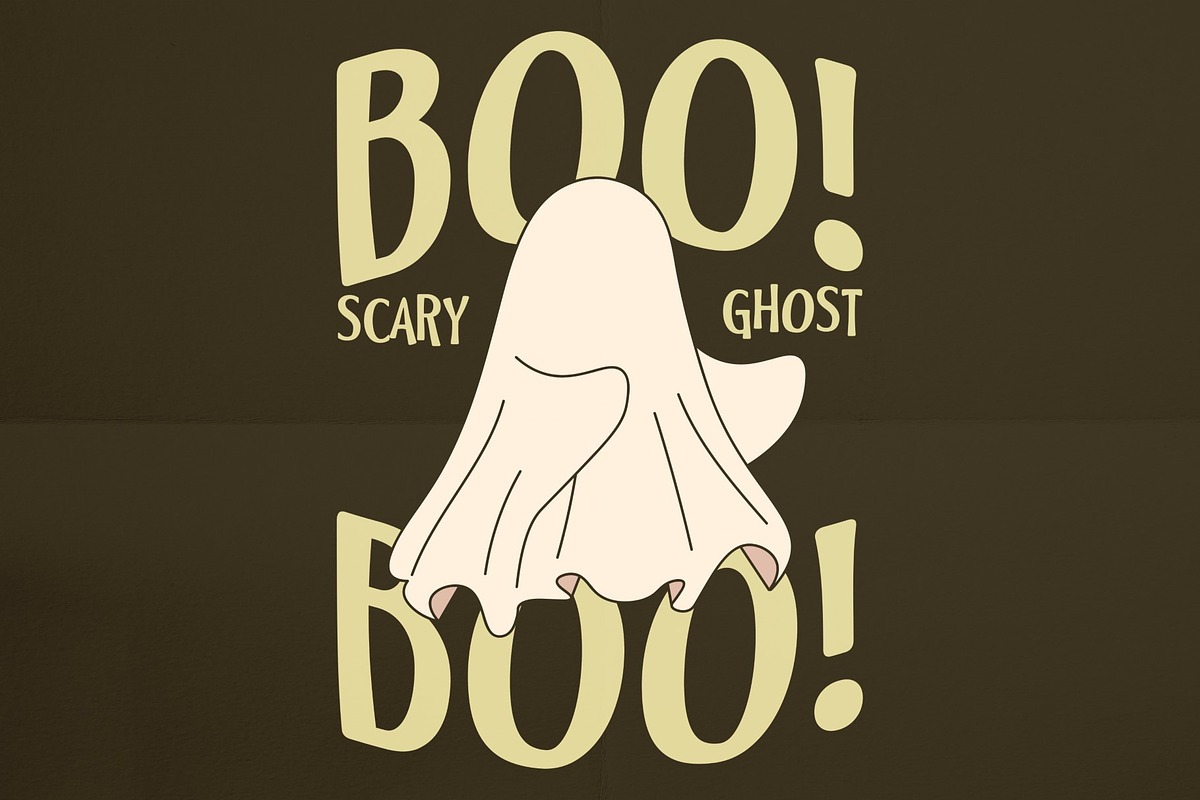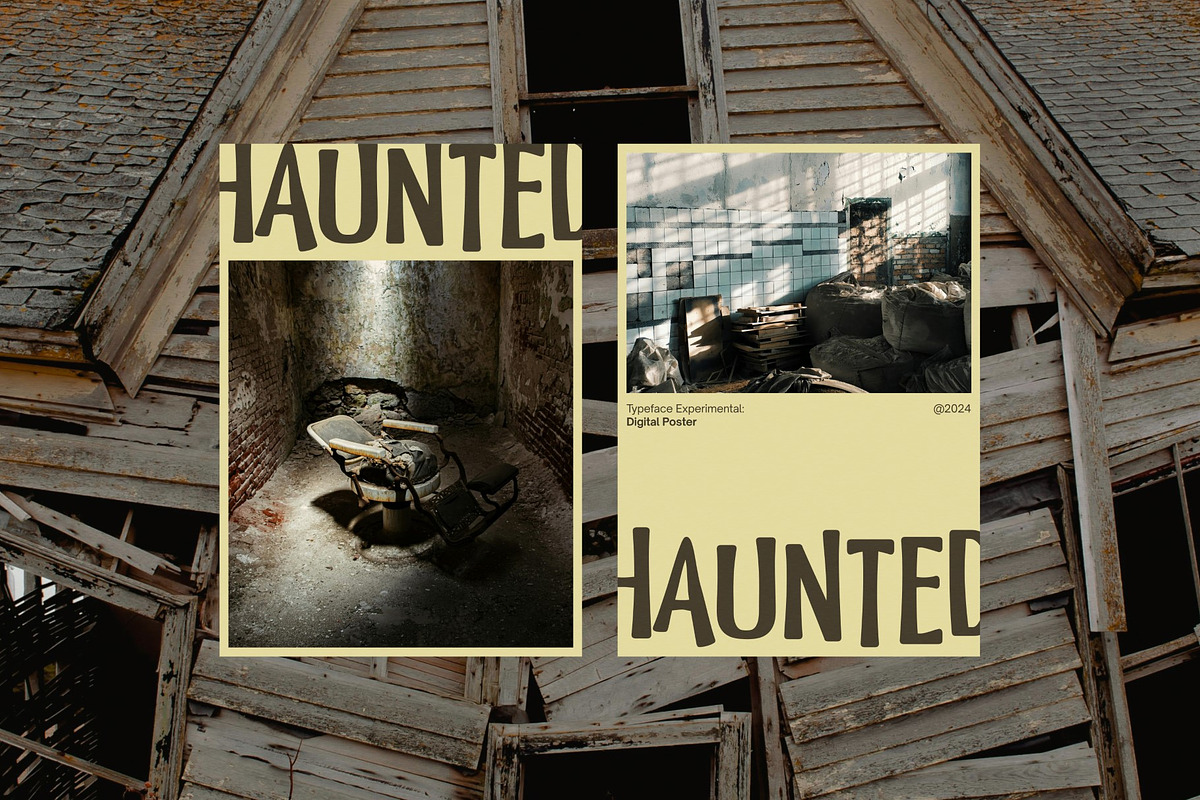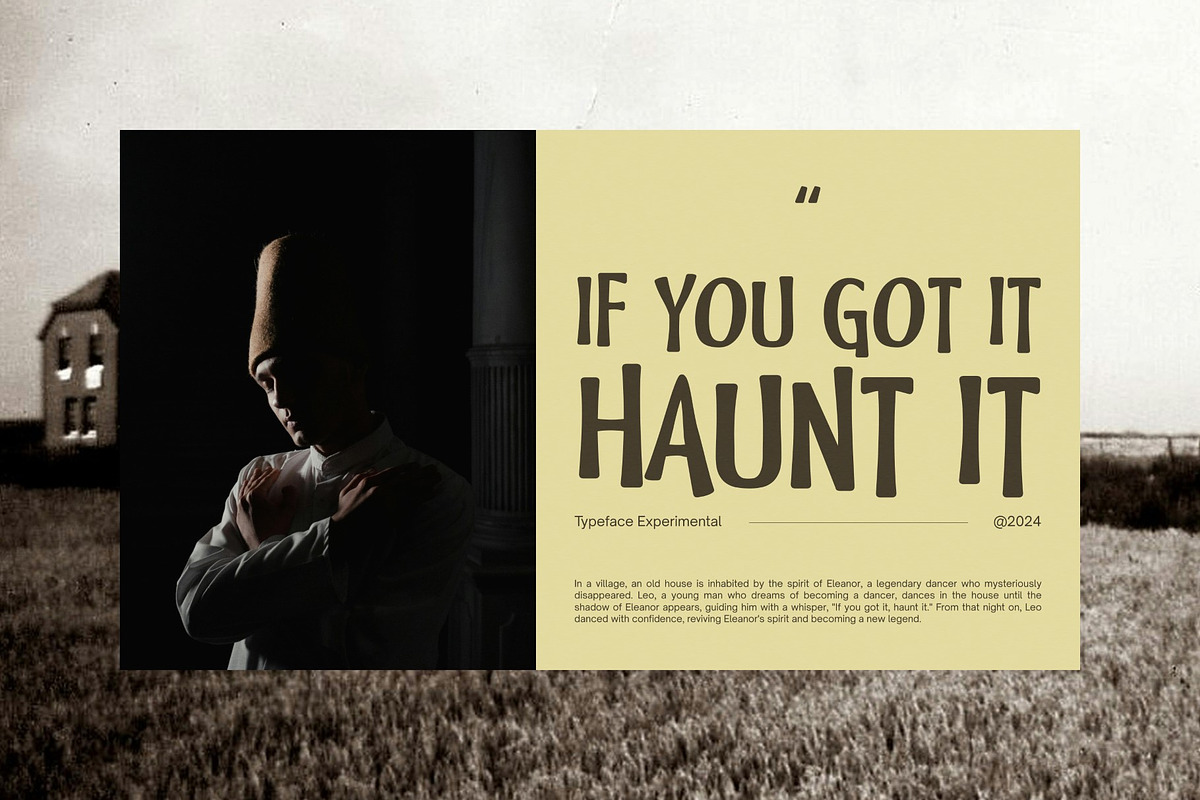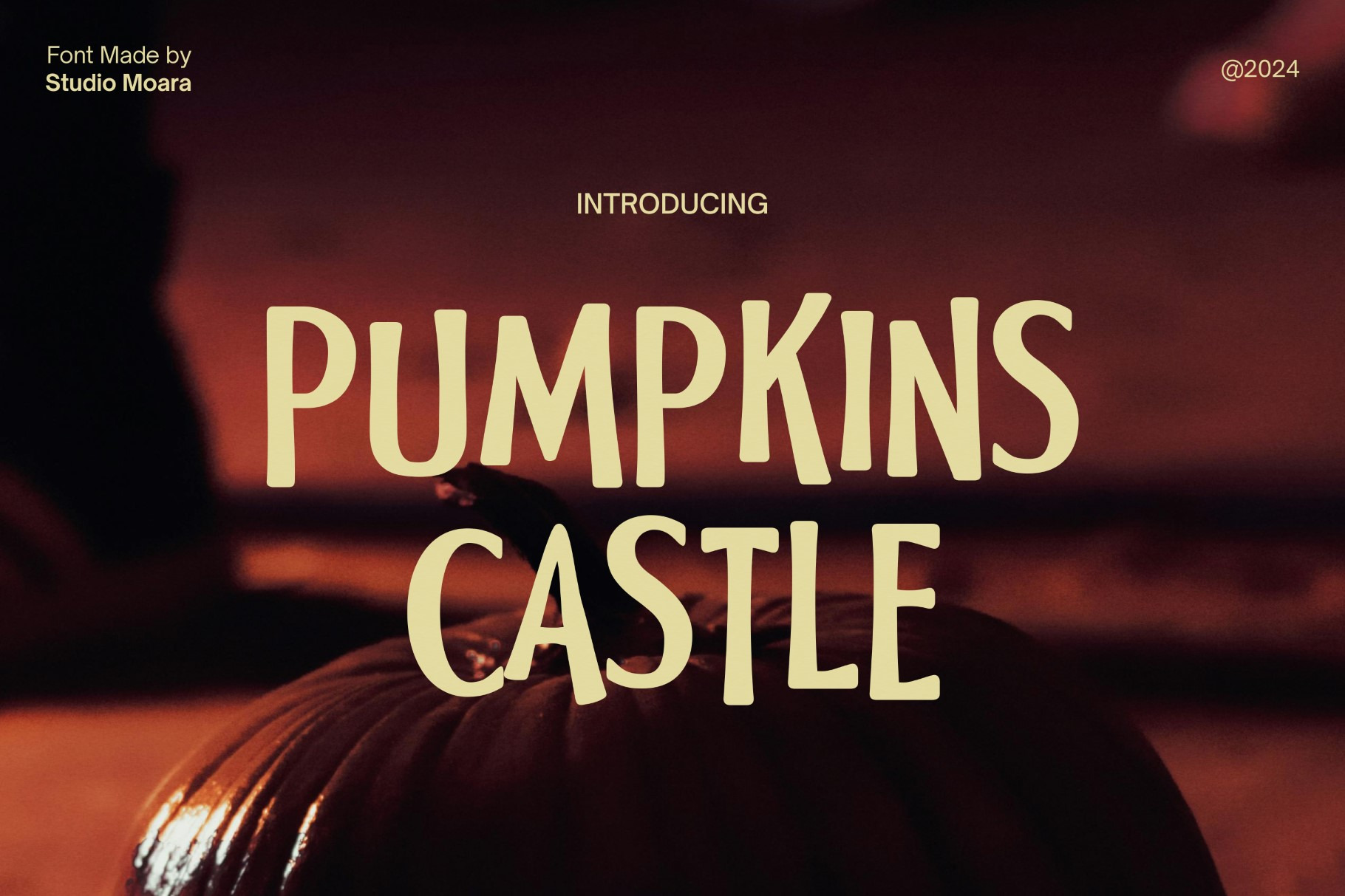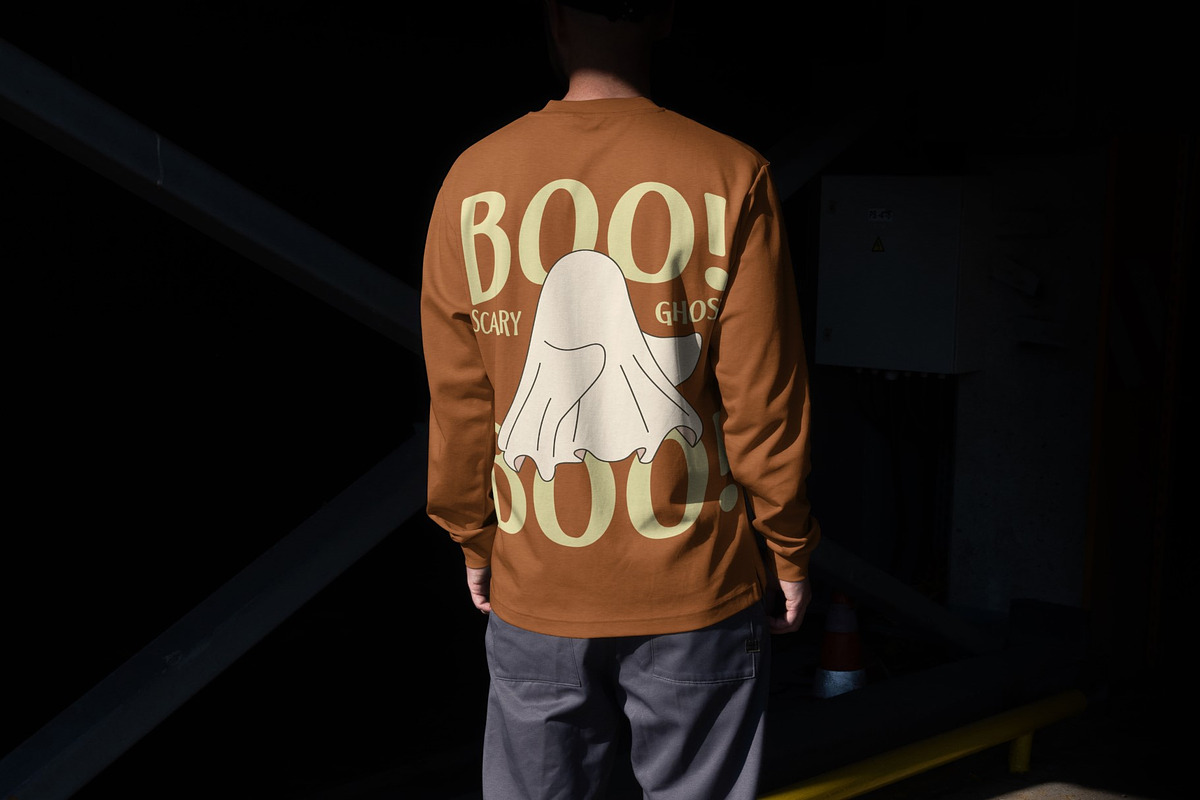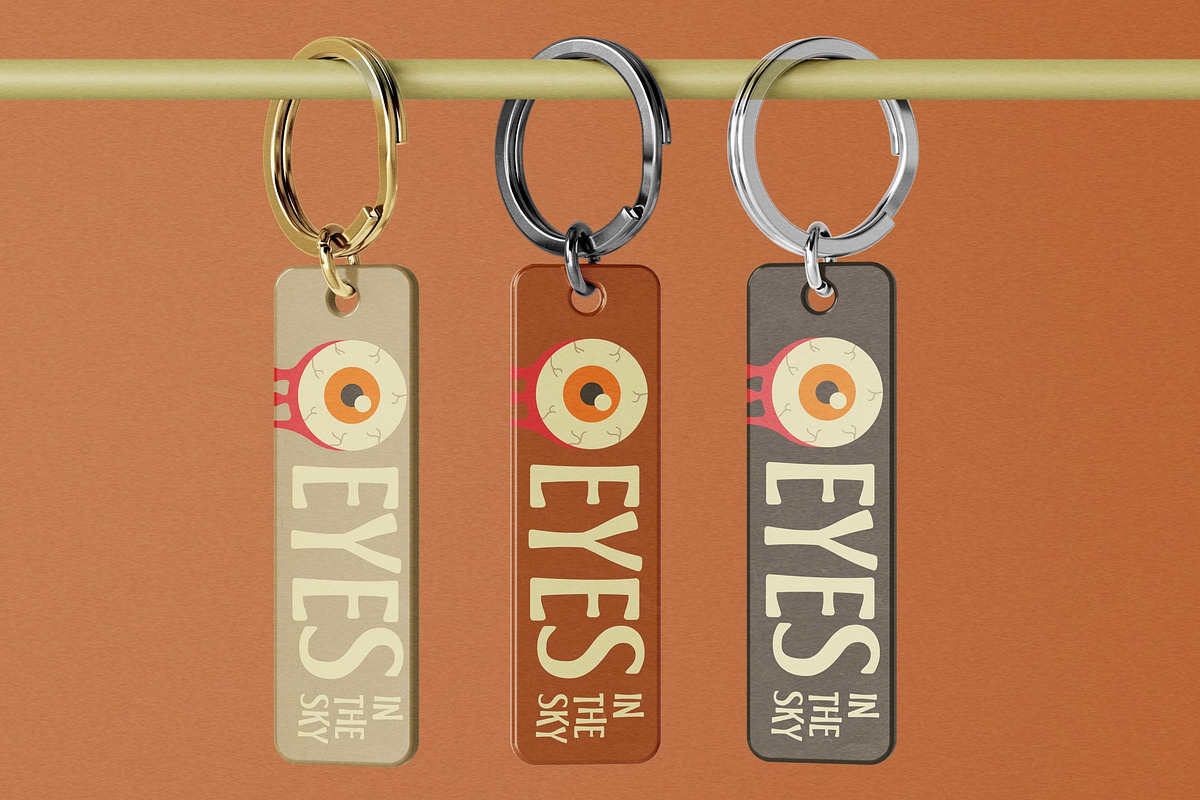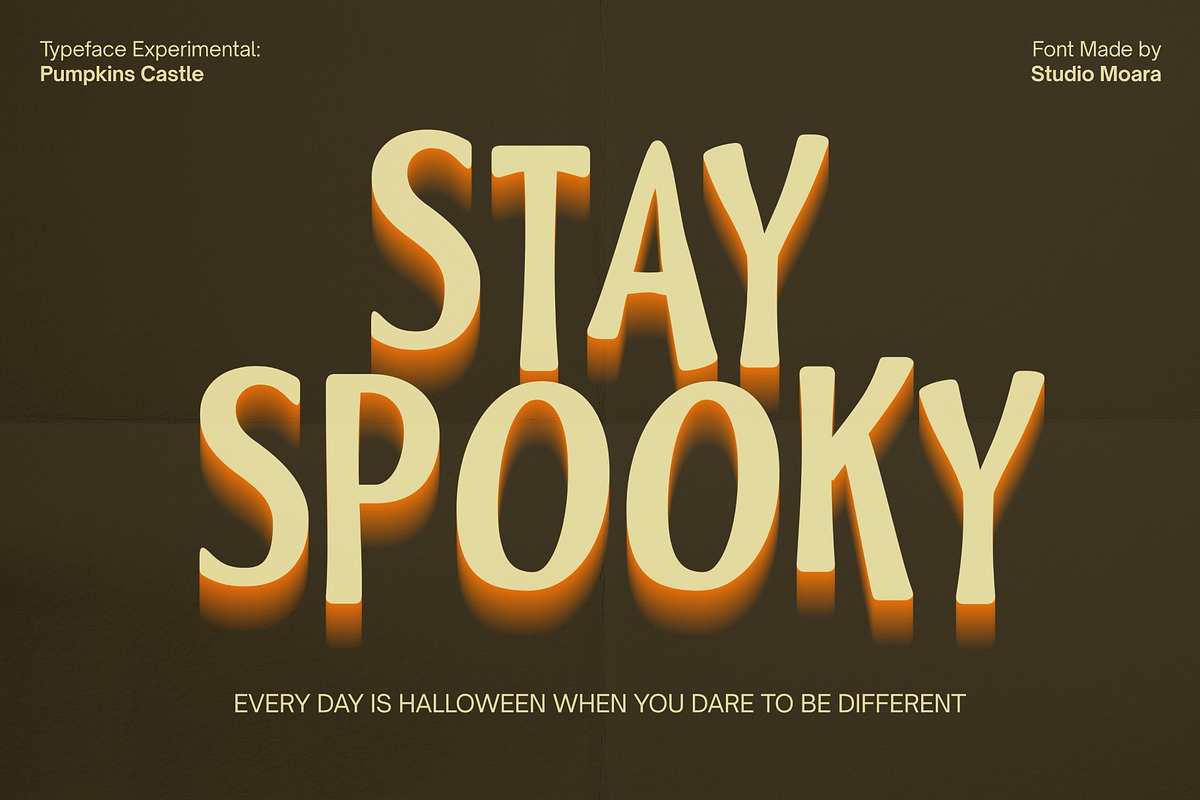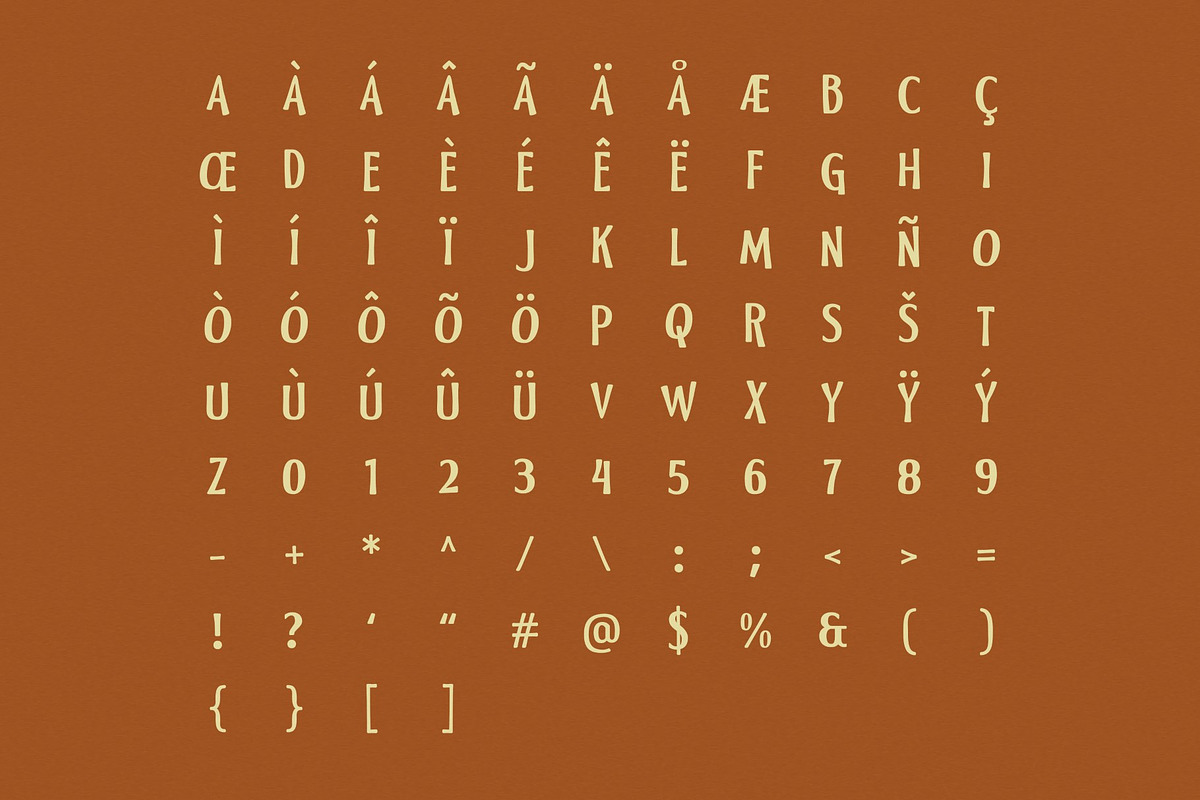
Pumpkin Castle - Display Font
Pumpkins Castle is a fun and festive Halloween display font that will add a touch of spooky charm to your projects. Inspired by pumpkins, ghosts, and all things Halloween, this font features playful characters and a vibrant color palette. Perfect for crafting festive designs, creating Halloween-themed branding, or adding a touch of spookiness to any project, Pumpkins Castle is sure to make a statement. With its unique and eye-catching style, this font is perfect for Halloween parties, costumes, and more